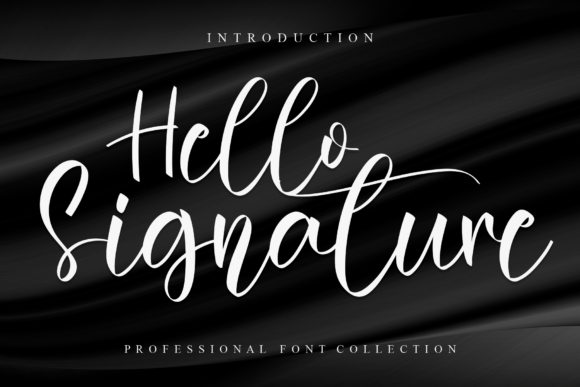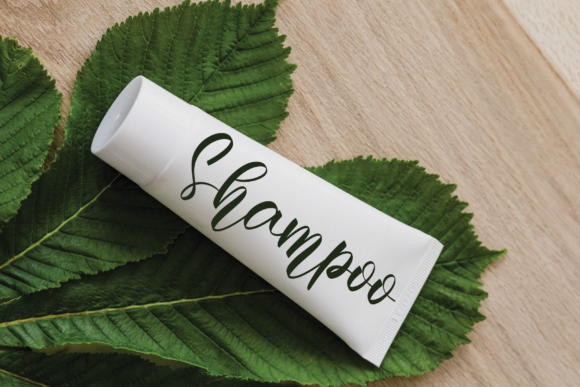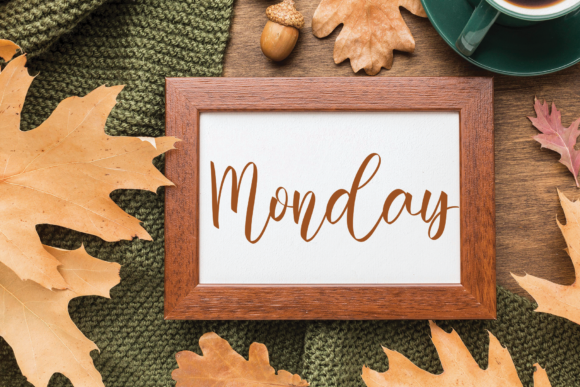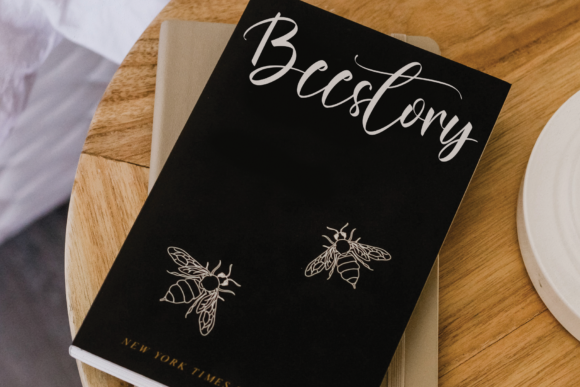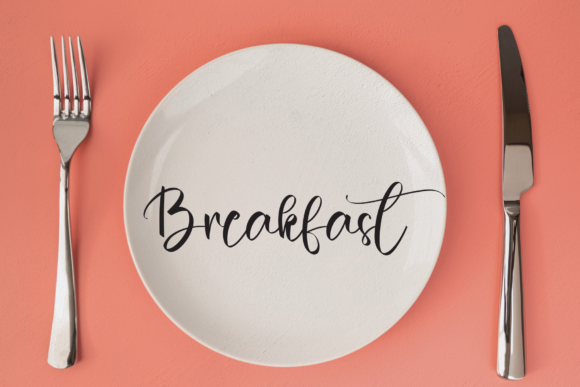
Unlock the Art of Handwritten Perfection with Hello Signature Font
Have you ever been working on a project, pouring your heart and soul into it, and suddenly, the perfect font pops into your mind? It’s as if the entire design comes together in an instant, and you can’t help but feel a sense of excitement and accomplishment. For many designers, this is exactly what happens when they discover the Hello Signature Font.
This elegant handwritten font is designed to add a touch of sophistication and whimsy to any project. With its slim and sleek letters, it’s perfect for creating invitations, greeting cards, and other personal designs. The Hello Signature Font is a valuable addition to any designer’s toolkit, offering a unique and stylish way to express themselves.
Whether you’re a seasoned pro or just starting out, the Hello Signature Font is sure to become your go-to choice for all your creative needs.
Hello Signature Font Key Features
- Font Style: A modern, elegant script font designed for creating professional-looking signatures.
- Unique Characteristics: Features a unique blend of modern and classic elements, with subtle flourishes and elegant lines.
Hello Signature Font Review
Overall, I’m quite impressed with the Hello Signature Font. It’s a beautiful, elegant script font that’s perfect for adding a personal touch to your designs. Here are some things that work well:
- ✨ Unique and distinctive letterforms that add a touch of sophistication to your designs
- ✨ Excellent legibility, even at small font sizes
- ✨ Wide range of languages supported, making it a great choice for global projects
- ✨ Elegant, flowing feel that’s perfect for invitation designs, quotes, and other creative projects
- ⚠️ Limited flexibility in terms of font weight and style variations
- ⚠️ May not be the best choice for projects that require a lot of bold, heavy text
- ⚠️ Some users may find the font a bit too ornate or over-the-top
Overall, I think the Hello Signature Font is a great addition to any designer’s toolkit. While it may have some limitations, its unique look and excellent legibility make it a great choice for a wide range of projects. With a little creativity and experimentation, I think you’ll find that this font is a great way to add some personality to your designs.
Getting the Most Out of Hello Signature Font
For the best results, use Hello Signature Font in conjunction with a bold, yet elegant color scheme. Experiment with different font sizes and styles to create a unique signature that reflects your personality. Consider combining Hello Signature Font with other fonts to add visual interest and depth to your design.
Hello Signature Font is ideal for creating professional-looking business cards, letterheads, and social media graphics. It’s also great for adding a personal touch to presentations, reports, and other documents. With its elegant and sophisticated design, Hello Signature Font is perfect for anyone looking to make a lasting impression.